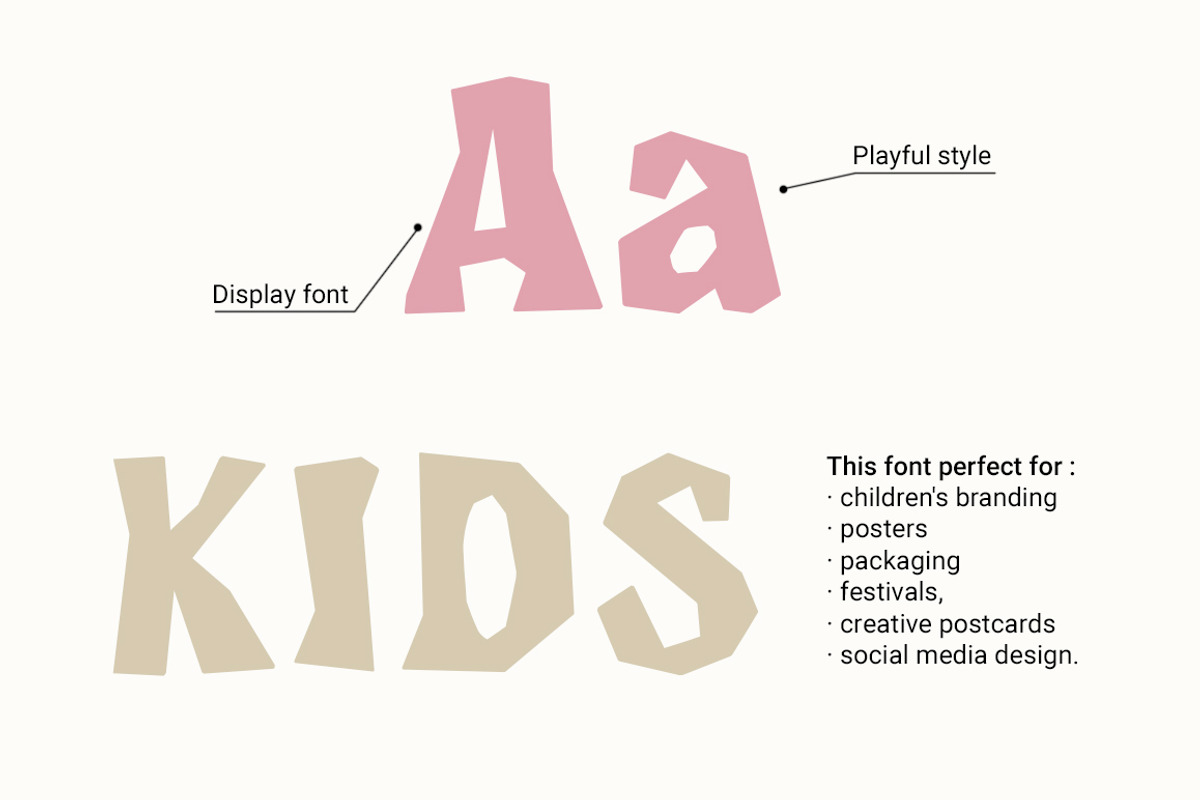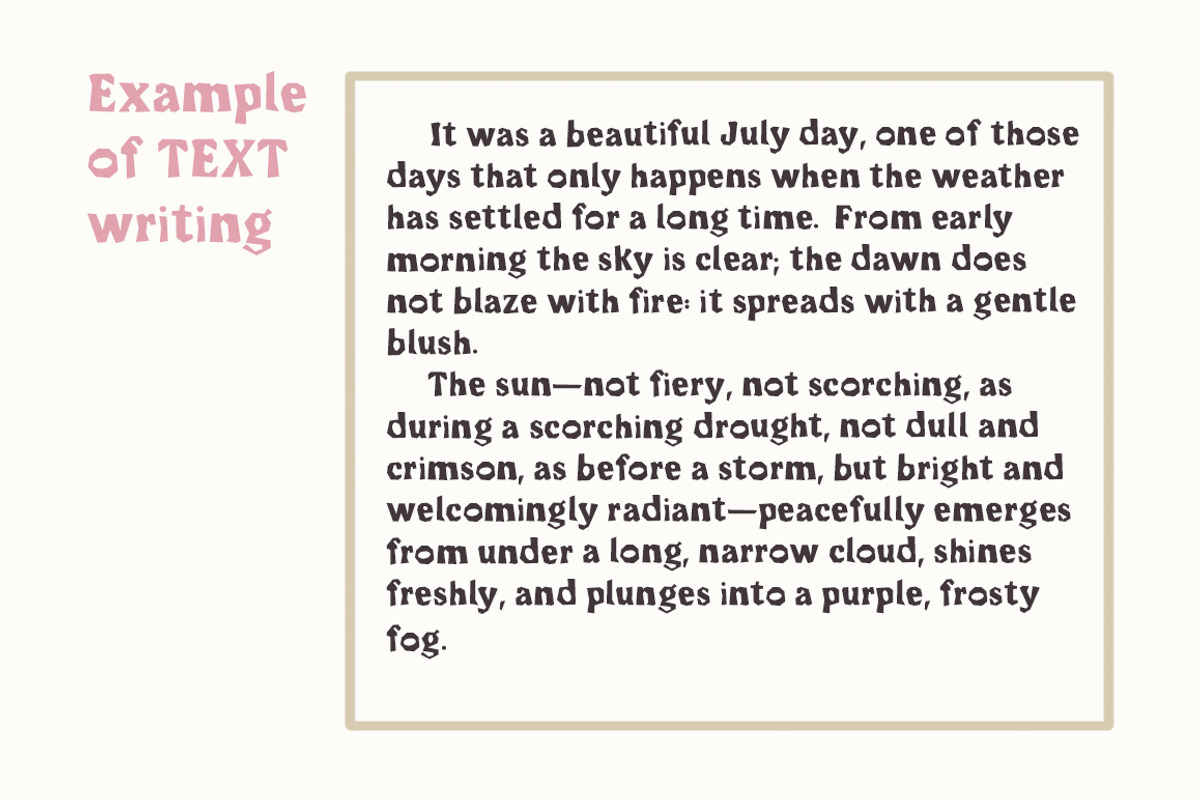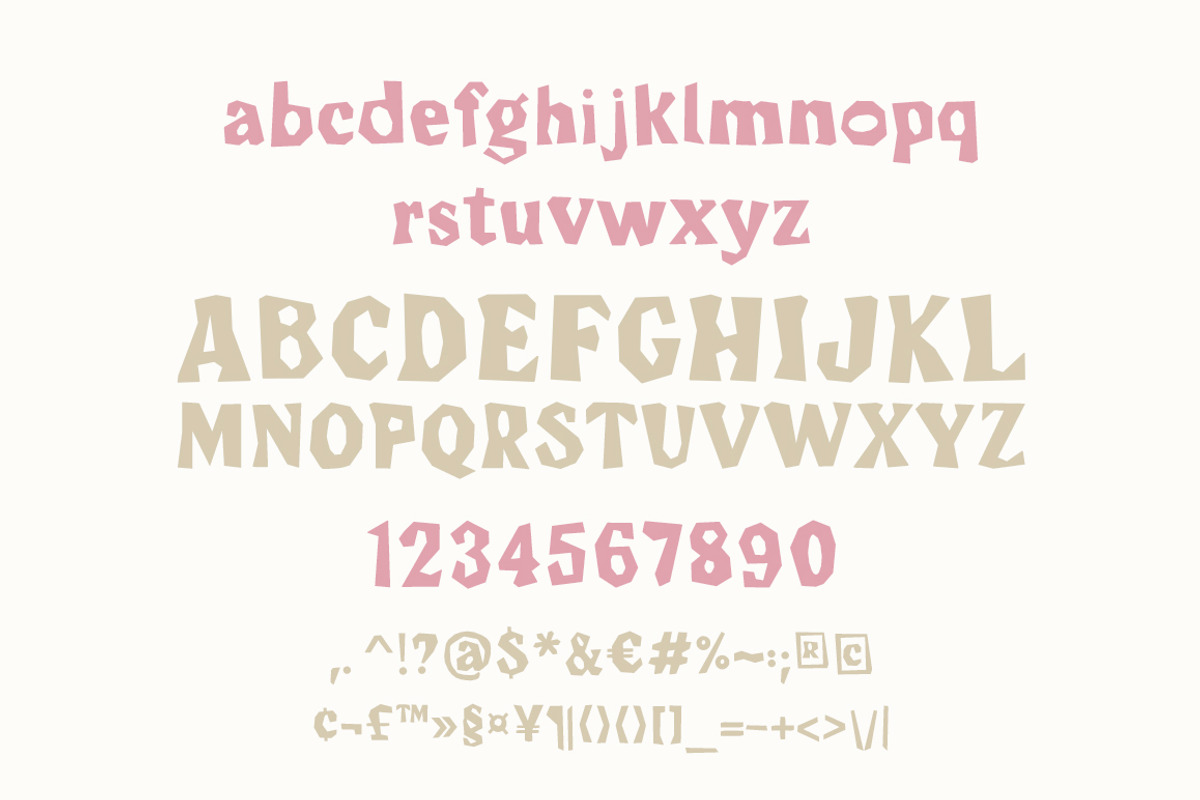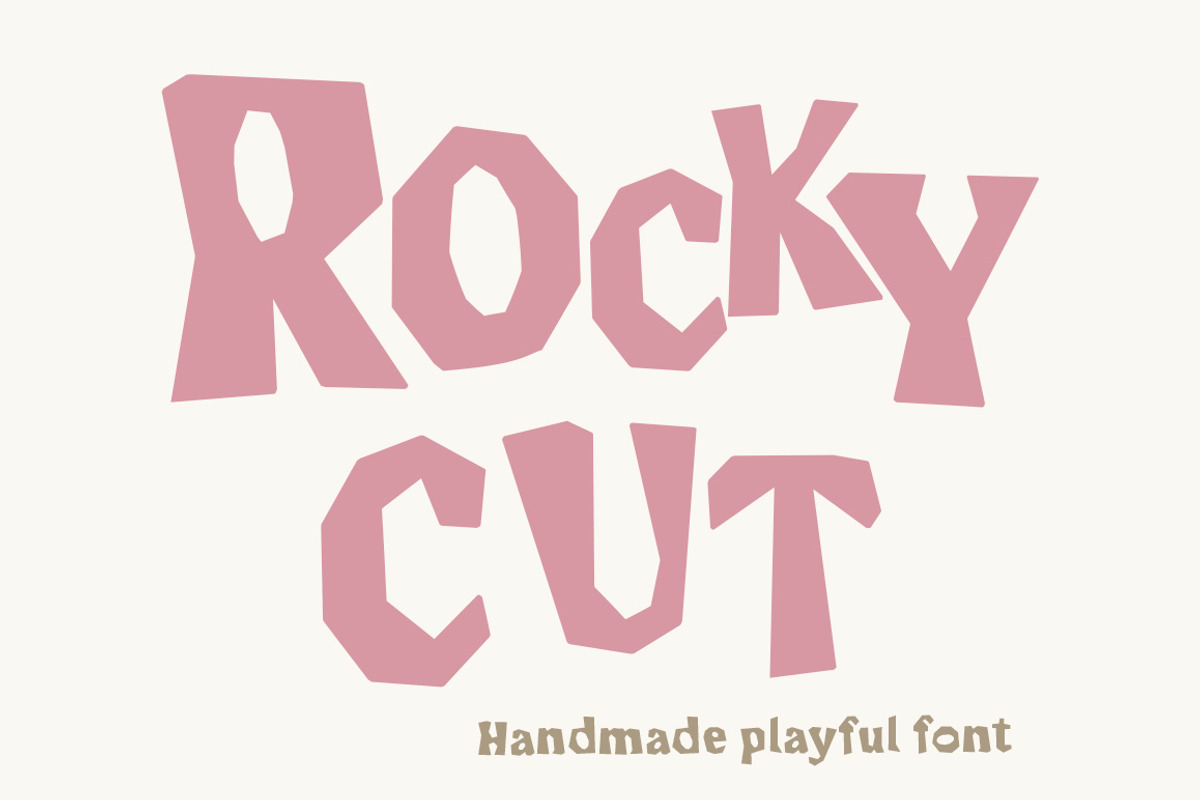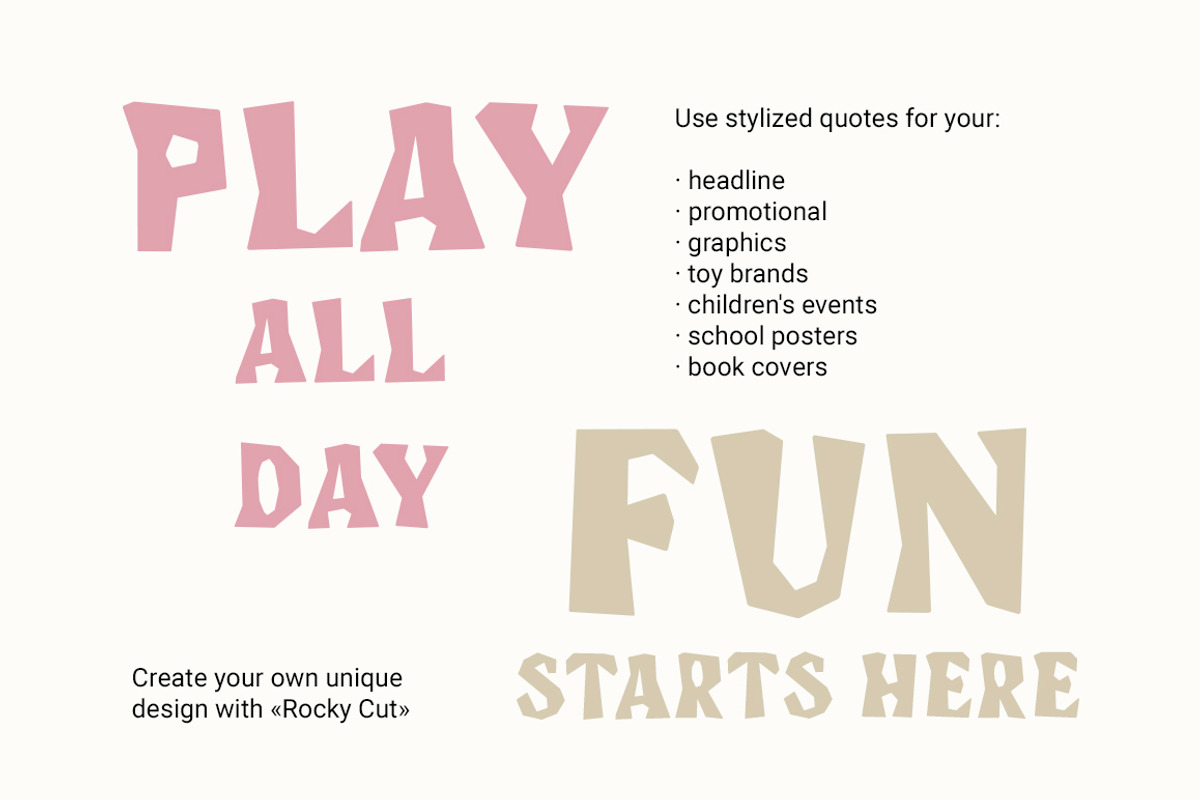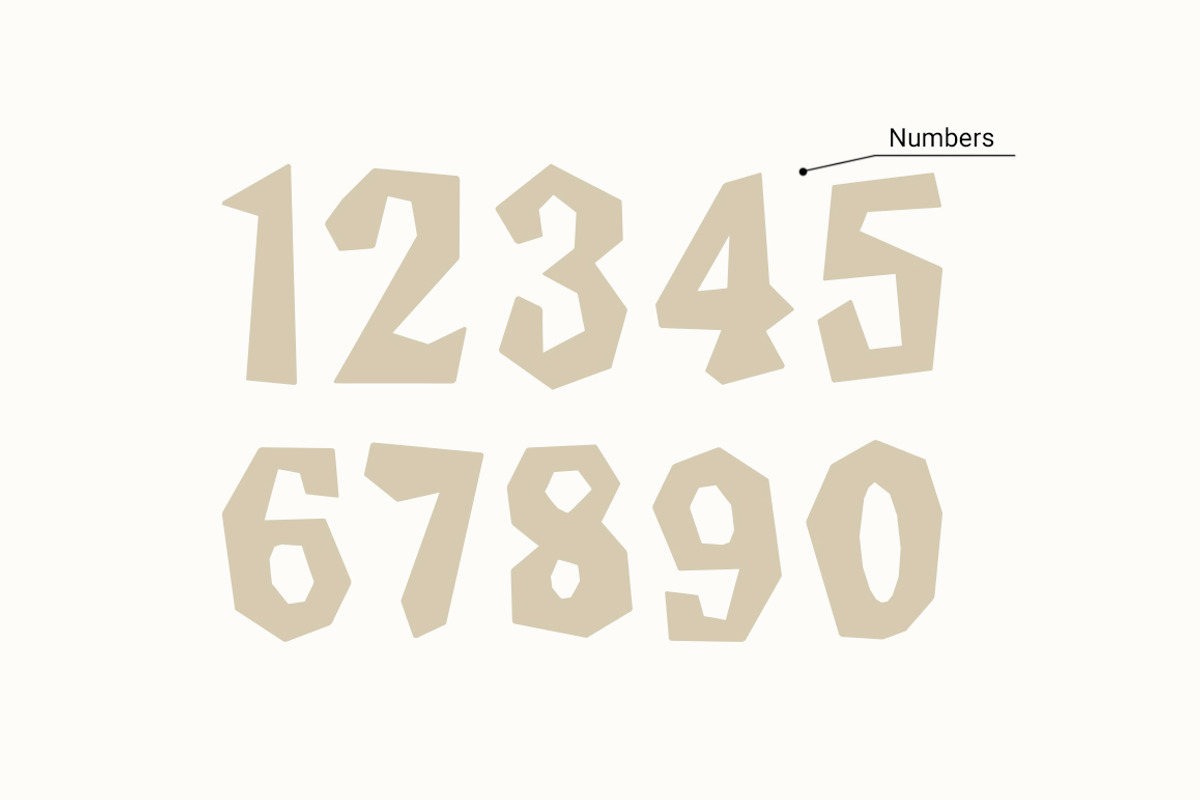
RockyCut handmade font
Rocky Cut is a playful, uneven display serif with slightly "cut-out" geometric shapes. The font looks as if it was cut out of paper with scissors: angular, dynamic, friendly, and very lively.
It's perfect for projects that require personality and a distinctive feel: children's branding, posters, packaging, festivals, creative postcards, vibrant headlines, and social media design.